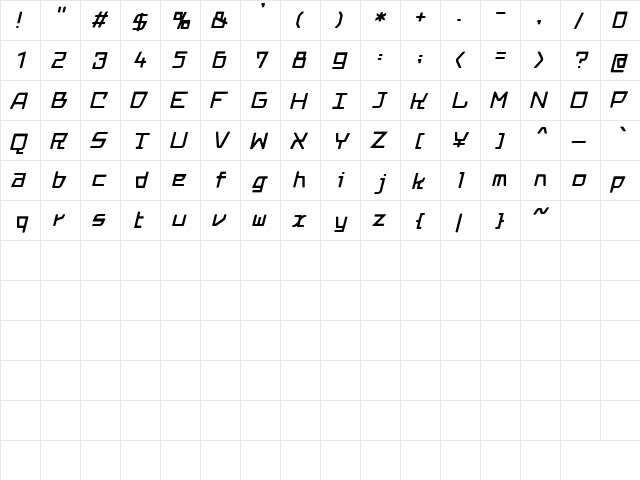
etudy alpha Regular
Design Context for etudy alpha Typeface
etudy alpha is a composed and adaptable typeface that performs quietly and consistently across a wide range of design contexts.